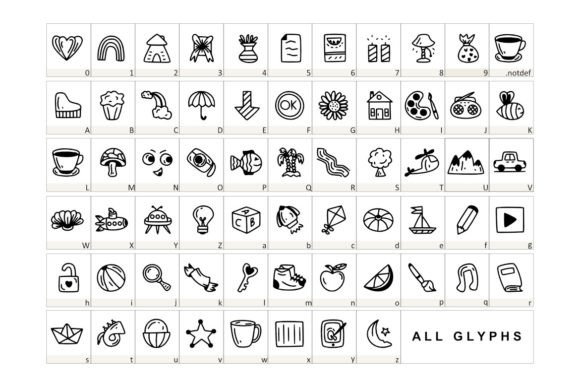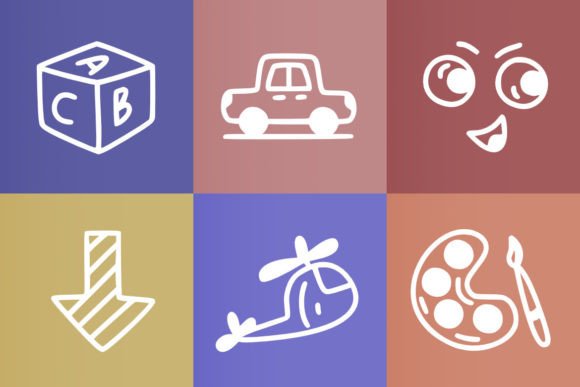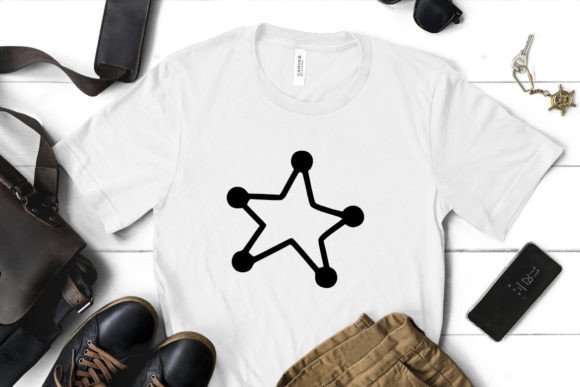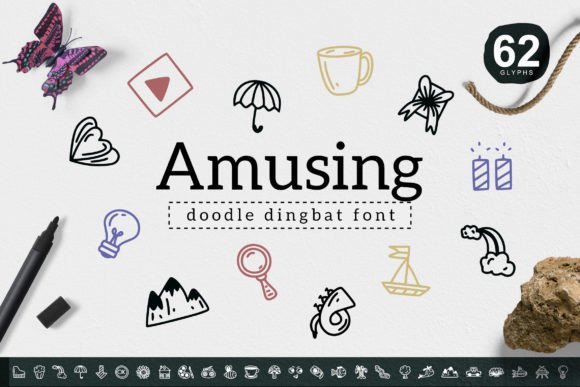
Introducing Amusing Font: The Ultimate Dingbats Font for Creative Projects
Are you a designer, crafter, or DIY enthusiast looking for a fun and versatile font to elevate your creative projects? Look no further than Amusing Font, a delightful dingbats font that’s perfect for a wide range of applications. From stickers and posters to t-shirts, cards, and apparel graphics, Amusing Font is the ideal choice for adding a touch of whimsy and personality to your designs.
What is Amusing Font?
Amusing Font is a unique and playful dingbats font that features a collection of charming and quirky symbols, icons, and illustrations. Unlike traditional fonts, dingbats fonts like Amusing Font offer a visual language that can add an extra layer of meaning and humor to your designs. With its extensive character set, Amusing Font allows you to experiment with different styles and themes, making it an excellent addition to your font library.
Key Features of Amusing Font
- Fun and playful design: Amusing Font boasts a lively and entertaining design that’s sure to capture the attention of your audience.
- Versatile and adaptable: Use Amusing Font for various projects, from digital designs to print materials, and watch your creations come to life.
- Extensive character set: With a wide range of symbols, icons, and illustrations, Amusing Font offers endless possibilities for creative expression.
Ideas for Using Amusing Font
The possibilities are endless when it comes to using Amusing Font. Here are some ideas to get you started:
- Stickers and labels: Add a playful touch to your stickers and labels with Amusing Font’s fun and colorful characters.
- Posters and flyers: Create eye-catching posters and flyers that showcase your brand’s personality with Amusing Font.
- T-shirts and apparel: Design unique and humorous t-shirts, hoodies, and other apparel items that will make your audience smile.
- Cards and invitations: Add a personal touch to your cards and invitations with Amusing Font’s charming illustrations.
- Apparel graphics and branding: Use Amusing Font to create distinctive and memorable branding elements, such as logos, icons, and social media graphics.
Tips for Getting the Most Out of Amusing Font
To make the most of Amusing Font, keep the following tips in mind:
- Experiment with different sizes and colors: Play around with various font sizes and colors to create visual interest and hierarchy.
- Mix and match characters: Combine different characters and symbols to create unique and engaging compositions.
- Use Amusing Font as a design element: Incorporate Amusing Font as a design element, rather than just using it as a font, to add texture and depth to your designs.